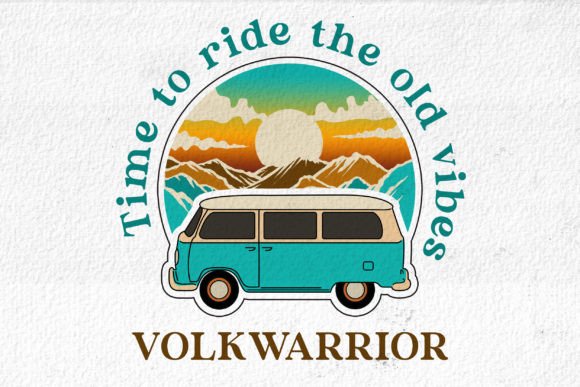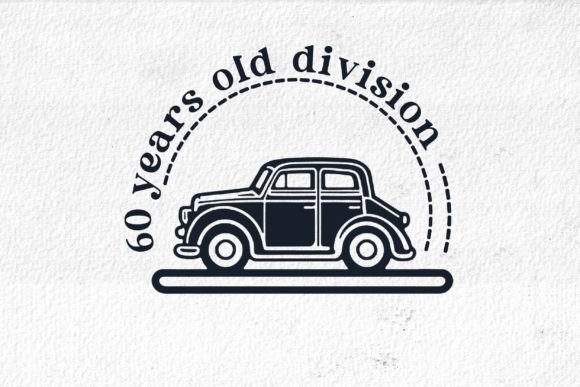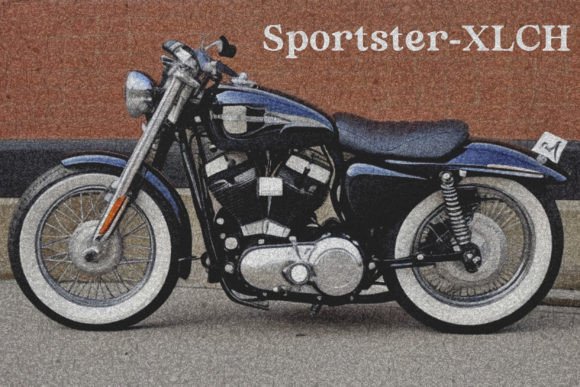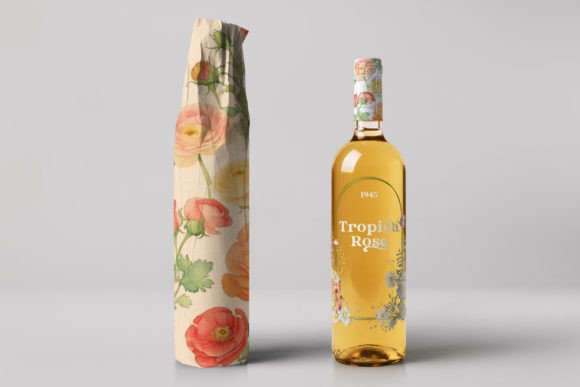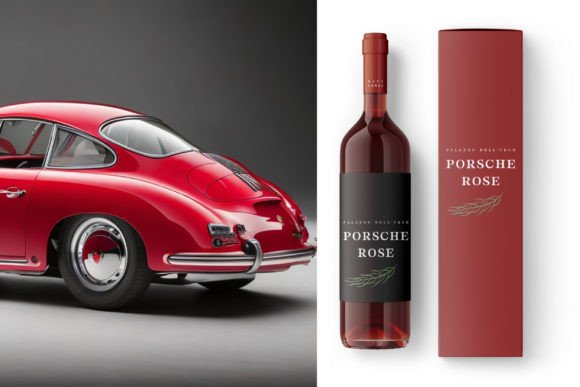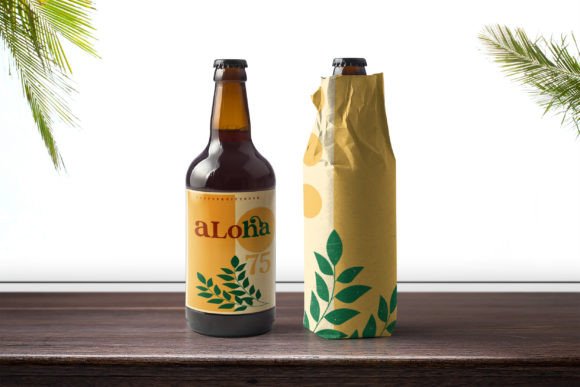
Introducing Classic Vibes Font: Elevate Your Designs with Timeless Elegance
In the world of typography, few fonts manage to capture the essence of classic luxury and retro charm as effectively as Classic Vibes. This stylish font is designed to bring a touch of sophistication and nostalgia to a wide range of design projects, from logos and quotes to blog posts and branding initiatives. With its elegant lines, beautiful ligatures, and versatile alternatives, Classic Vibes is the perfect choice for designers and crafters looking to infuse their work with a sense of timeless elegance.
The Classic Vibes Advantage
So, what sets Classic Vibes apart from other fonts? Here are just a few reasons why this font has become a go-to choice for designers and crafters:
- Classic and Retro Look: Classic Vibes boasts a distinctive classic and retro aesthetic that instantly adds a touch of sophistication to any design project.
- Alternatives and Ligatures: The font comes with a range of beautiful alternatives and ligatures, allowing designers to experiment with different styles and create unique, eye-catching designs.
- Versatility: Whether you’re working on a logo, quote, blog post, or branding project, Classic Vibes is the perfect choice. Its versatility makes it suitable for a wide range of applications, from marketing and magazine imagery to wedding invitations and t-shirt designs.
Use Cases for Classic Vibes Font
The possibilities are endless when it comes to using Classic Vibes in your design projects. Here are some inspiring use cases to get you started:
- Branding Projects in Marketing: Add a touch of classic luxury to your marketing campaigns with Classic Vibes. The font’s elegant lines and sophisticated aesthetic make it perfect for creating high-end branding materials.
- Magazine Imagery: Create visually stunning magazine spreads with Classic Vibes. The font’s retro charm and classic vibe make it ideal for fashion, lifestyle, and luxury publications.
- Wedding Invitations: Make your wedding invitations truly unforgettable with Classic Vibes. The font’s elegant lines and sophisticated aesthetic make it perfect for formal wedding stationery.
- T-Shirt Designs: Create unique and stylish t-shirt designs with Classic Vibes. The font’s versatility and retro charm make it perfect for designing eye-catching apparel.
- Blog Posts and Quotes: Add a touch of classic elegance to your blog posts and quotes with Classic Vibes. The font’s beautiful ligatures and alternatives make it perfect for creating visually stunning text-based designs.
Tips for Using Classic Vibes Font
To get the most out of Classic Vibes, here are some expert tips to keep in mind:
- Experiment with Ligatures: Classic Vibes comes with a range of beautiful ligatures that can add an extra touch of elegance to your designs. Experiment with different ligatures to find the perfect combination for your project.
- Mix and Match Alternatives: The font’s alternatives offer a range of stylish options for creating unique designs. Mix and match different alternatives to add visual interest to your project.
- Play with Font Sizes: Classic Vibes is a versatile font that can be used at a range of font sizes. Experiment with different font sizes to create visual hierarchy and add emphasis to your design.
Classic Vibes is a stylish font that offers a unique combination of classic and retro charm, making it perfect for designers and crafters looking to elevate their designs. With its elegant lines, beautiful ligatures, and versatile alternatives, Classic Vibes is the perfect choice for a wide range of design projects. Whether you’re working on branding initiatives, magazine imagery, wedding invitations, or t-shirt designs, Classic Vibes is sure to bring a touch of timeless elegance to your work.